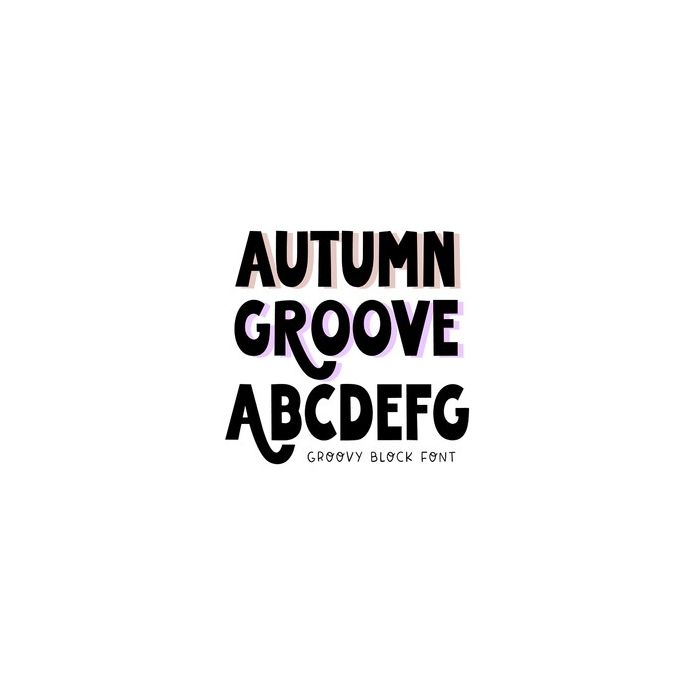
BFC Autumn Groove Retro Chunky Block Boho Swooped Font
Autumn Groove is a chunky retro font with 3 extra swooped characters. You can find them by using your glyph panel or character map.